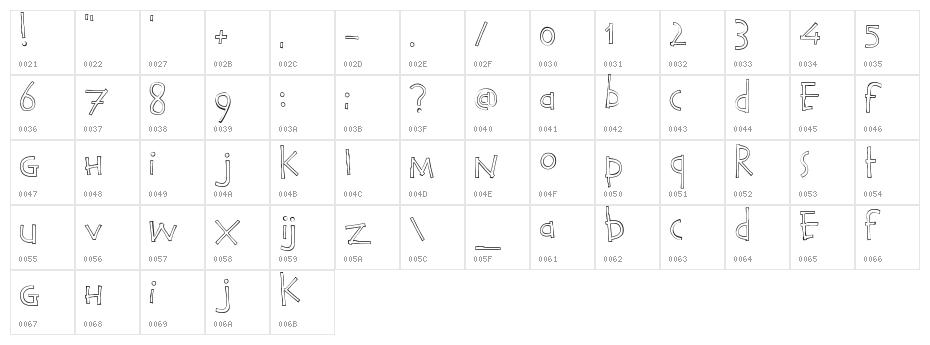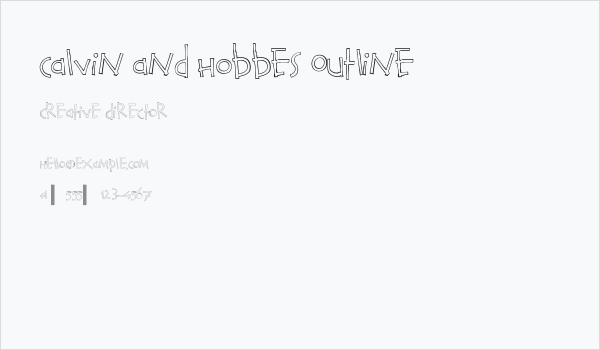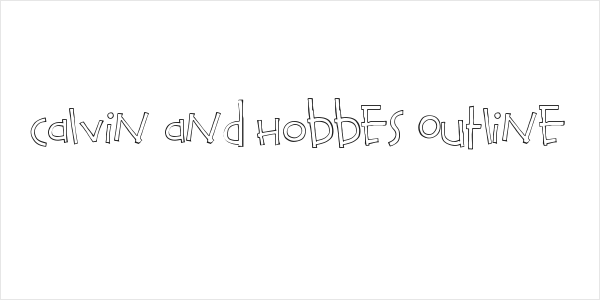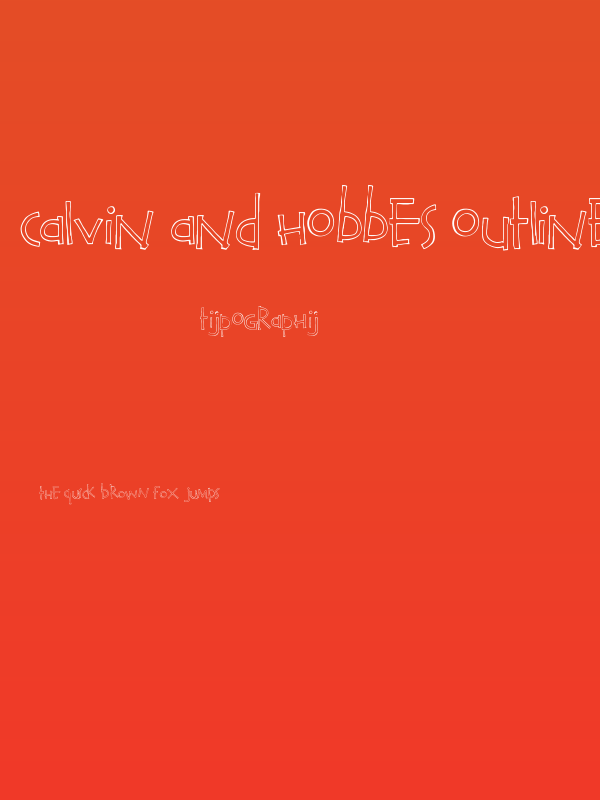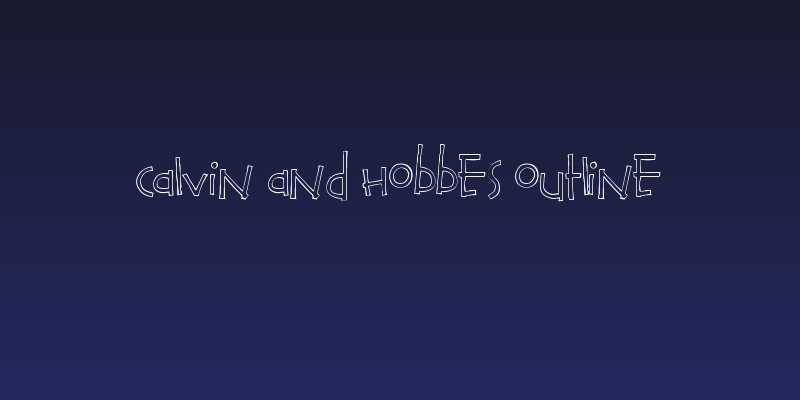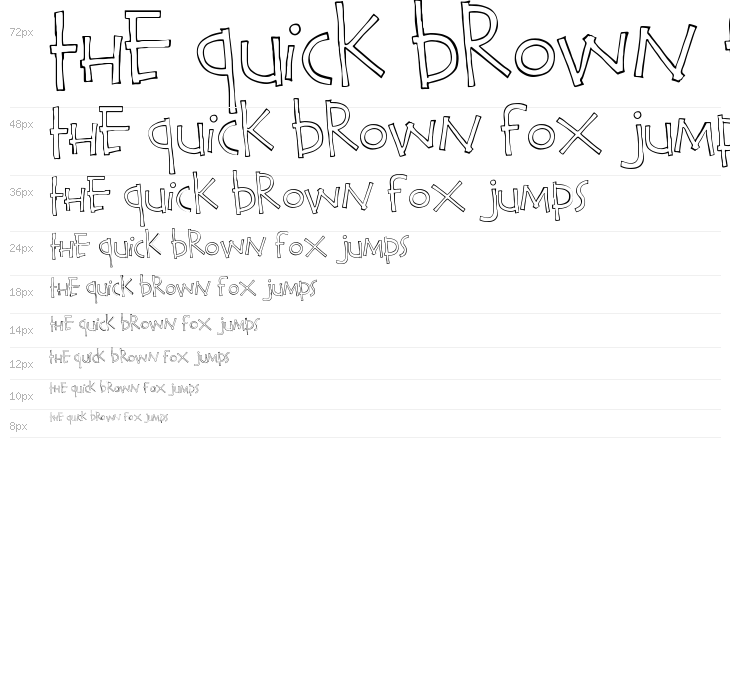
Calvin and Hobbes Outline Font
Calvin and Hobbes Outline Description
This playful and whimsical font features an outline style that mimics hand-drawn lettering, reminiscent of comic strips. The characters are irregular and quirky, with varying line thicknesses that give a lively and dynamic feel. The uppercase and lowercase letters maintain a consistent height, while the numbers and special characters follow the same playful aesthetic. The font's informal and casual appearance makes it ideal for projects that require a touch of humor and creativity.
Overall StylePlayful, Whimsical, Comic
Proposed ProjectsPerfect for comic books, children's books, playful branding, and creative posters.